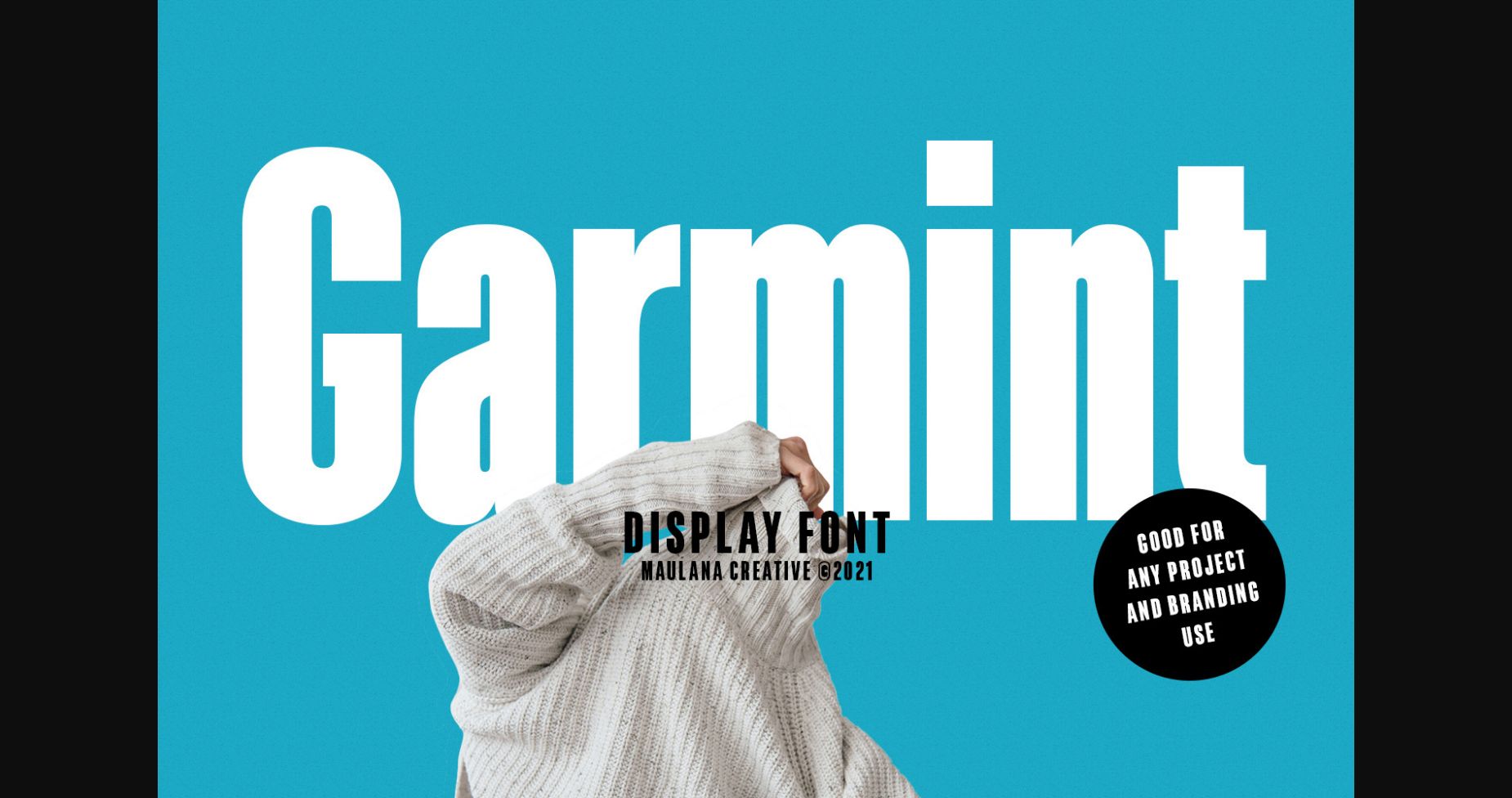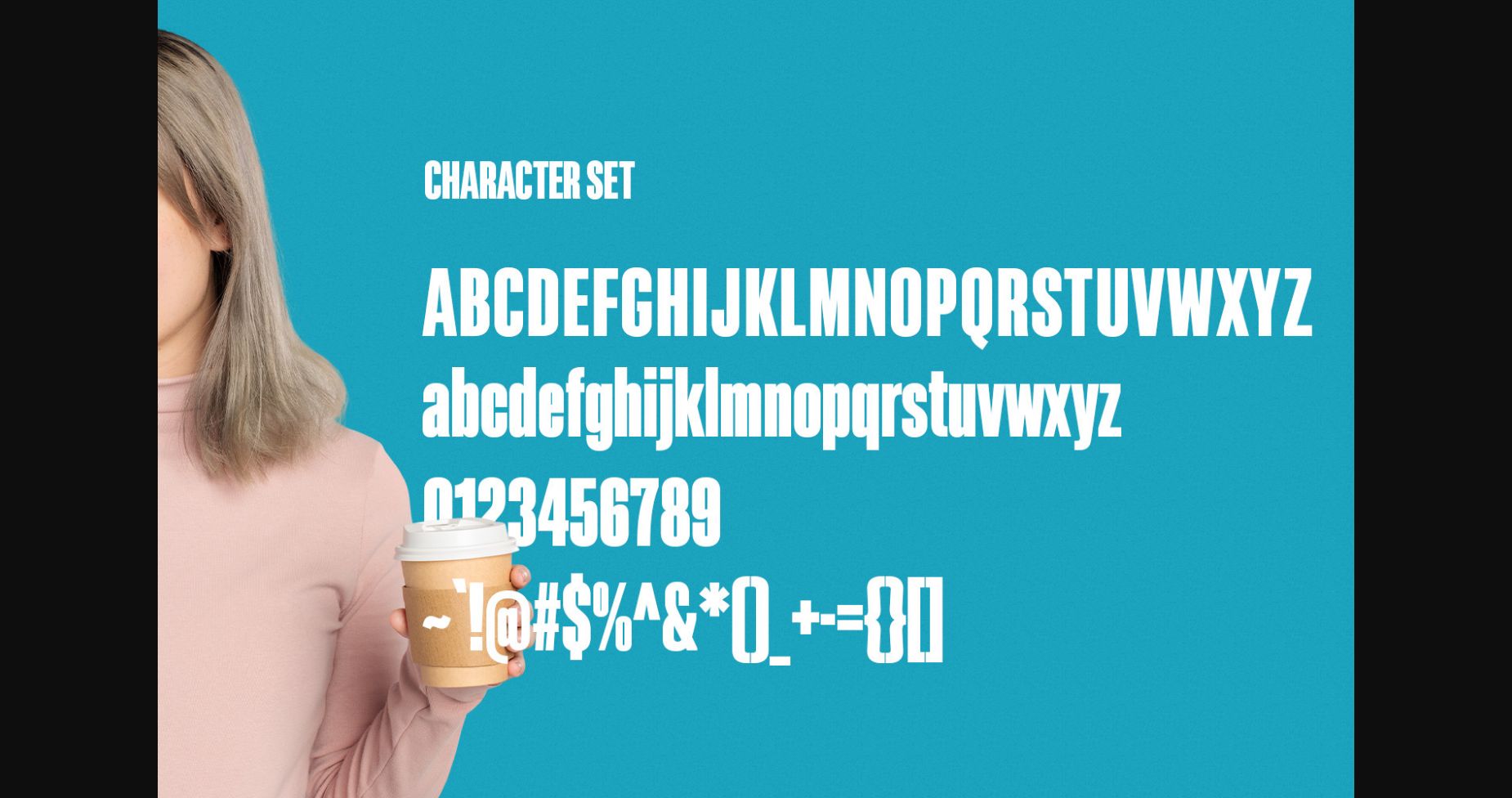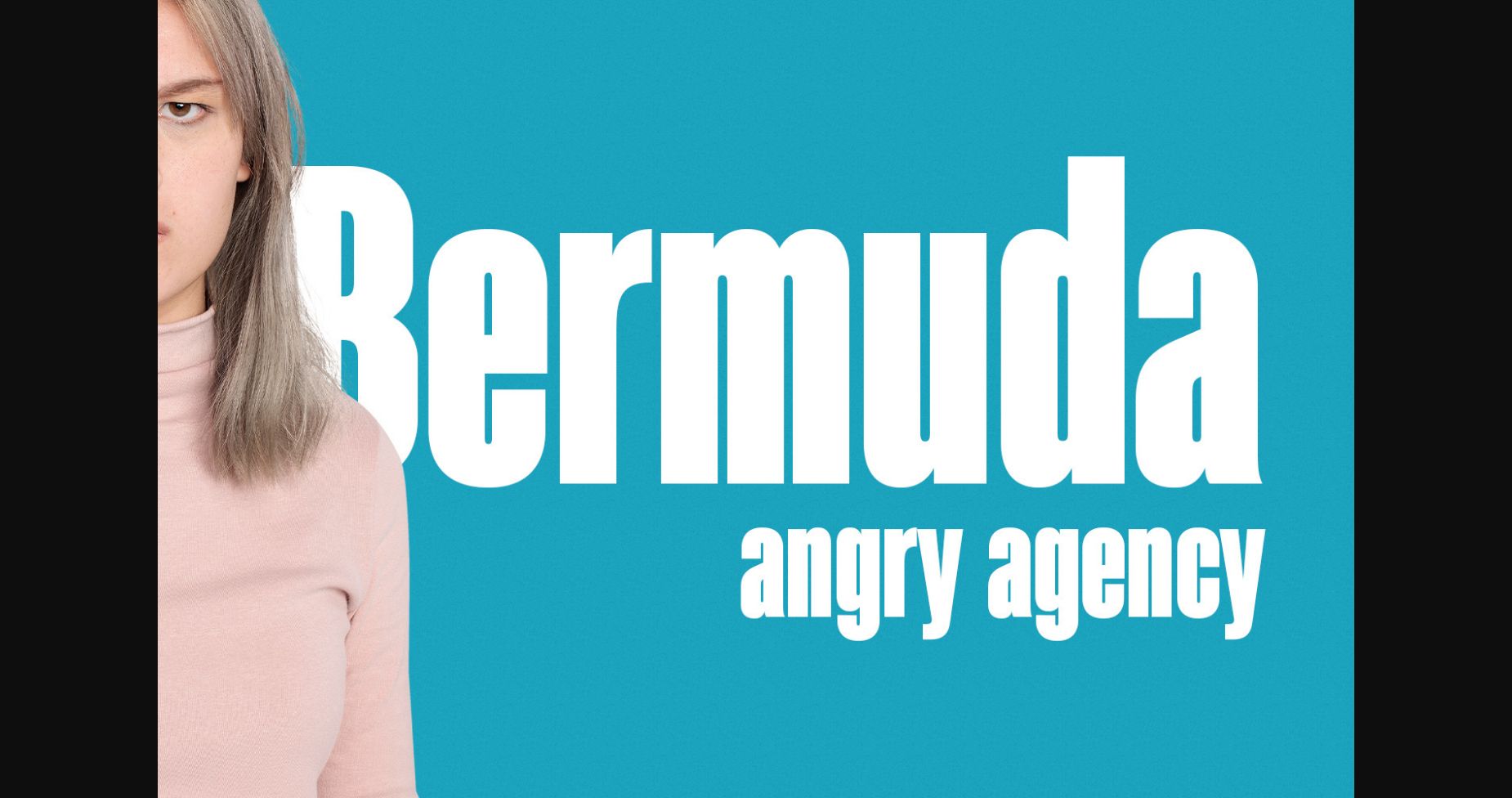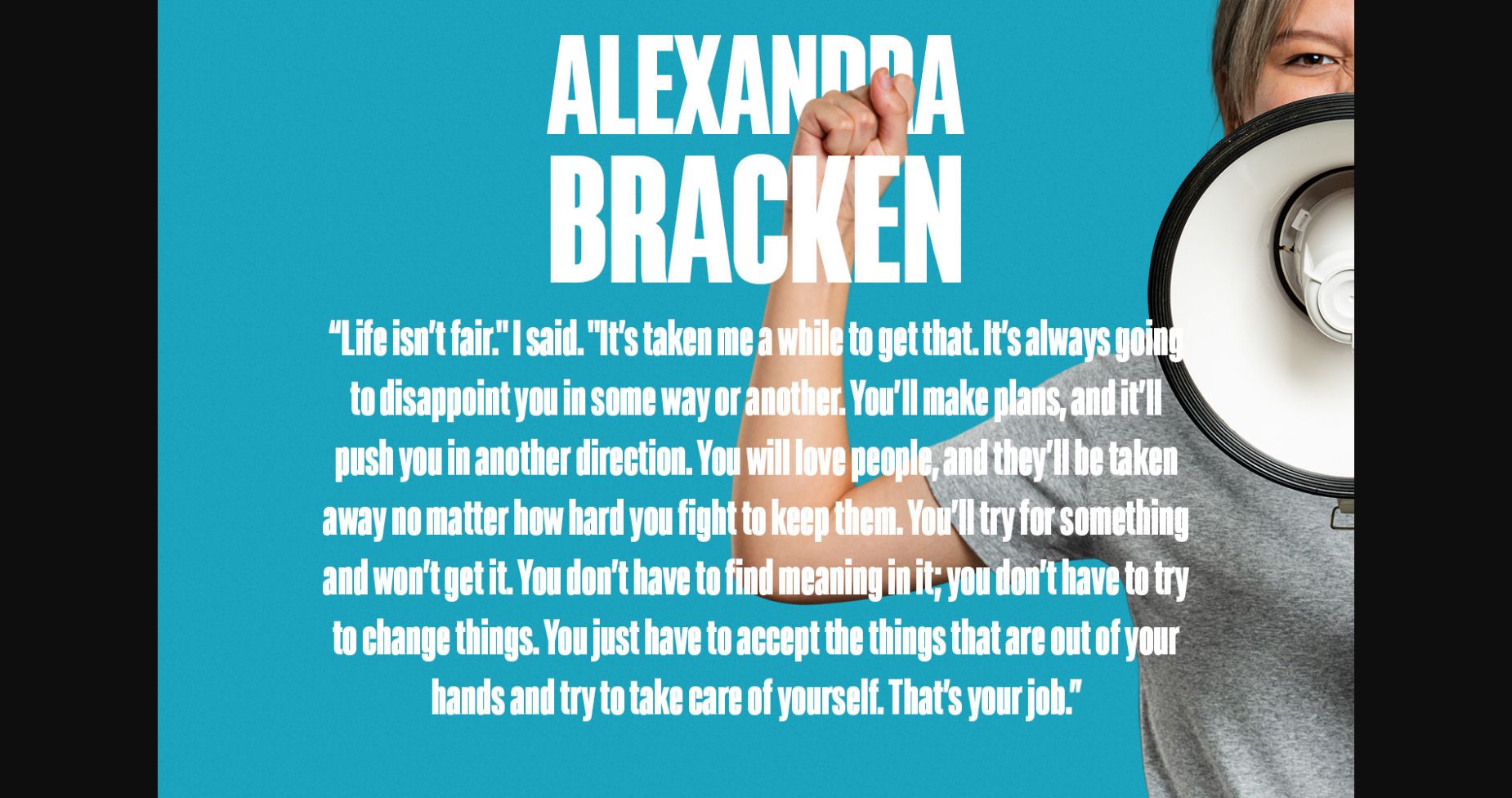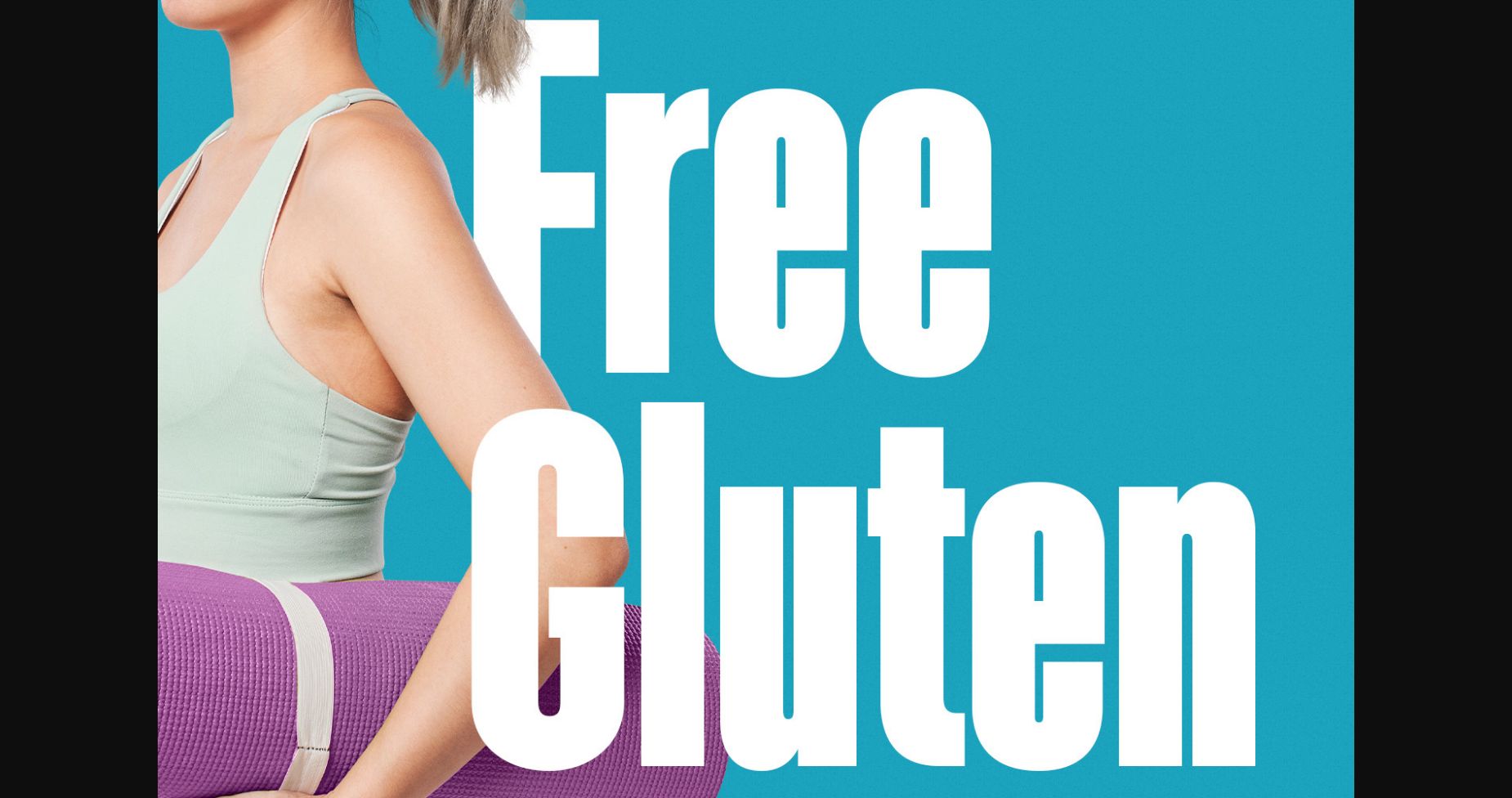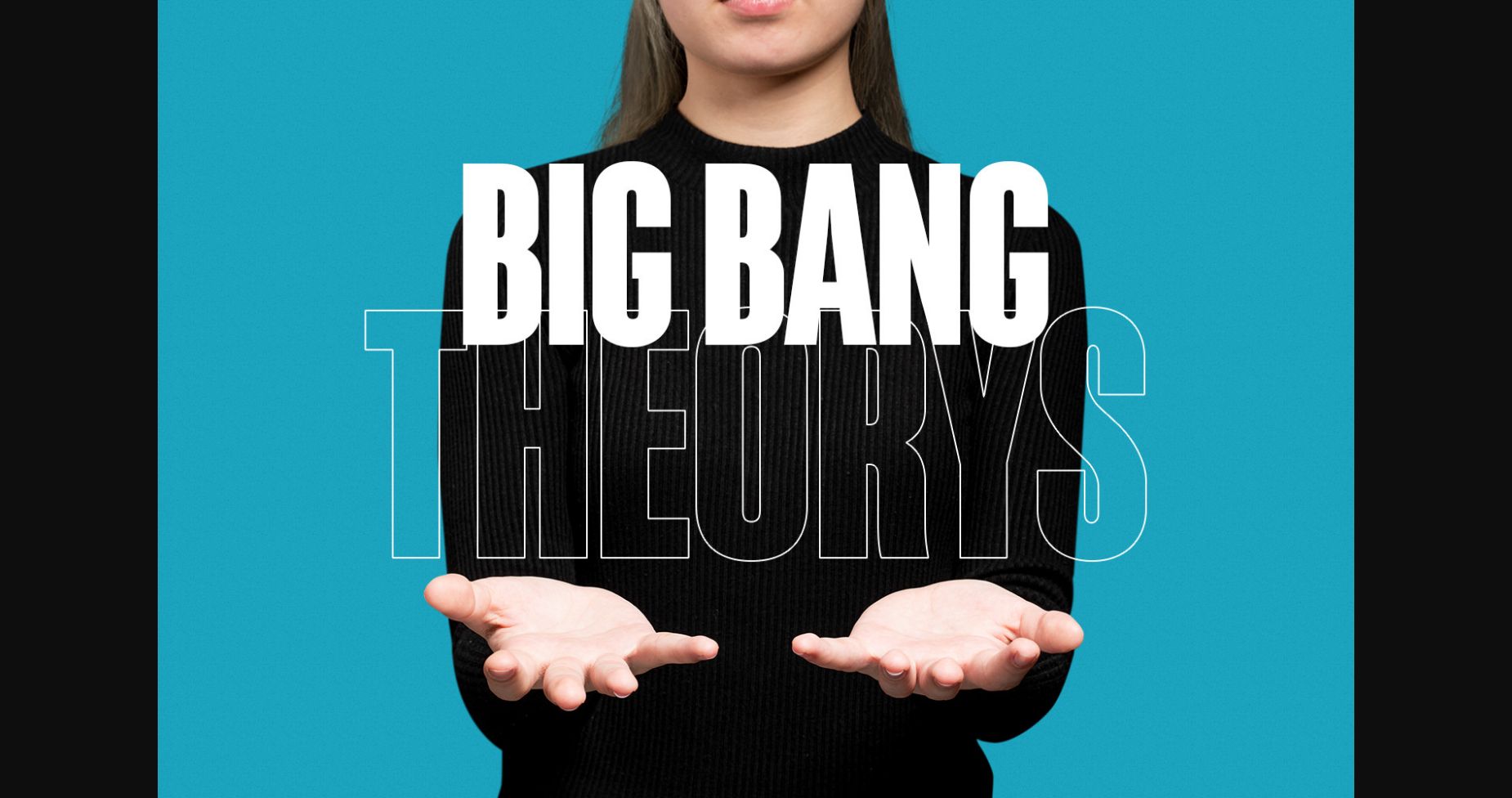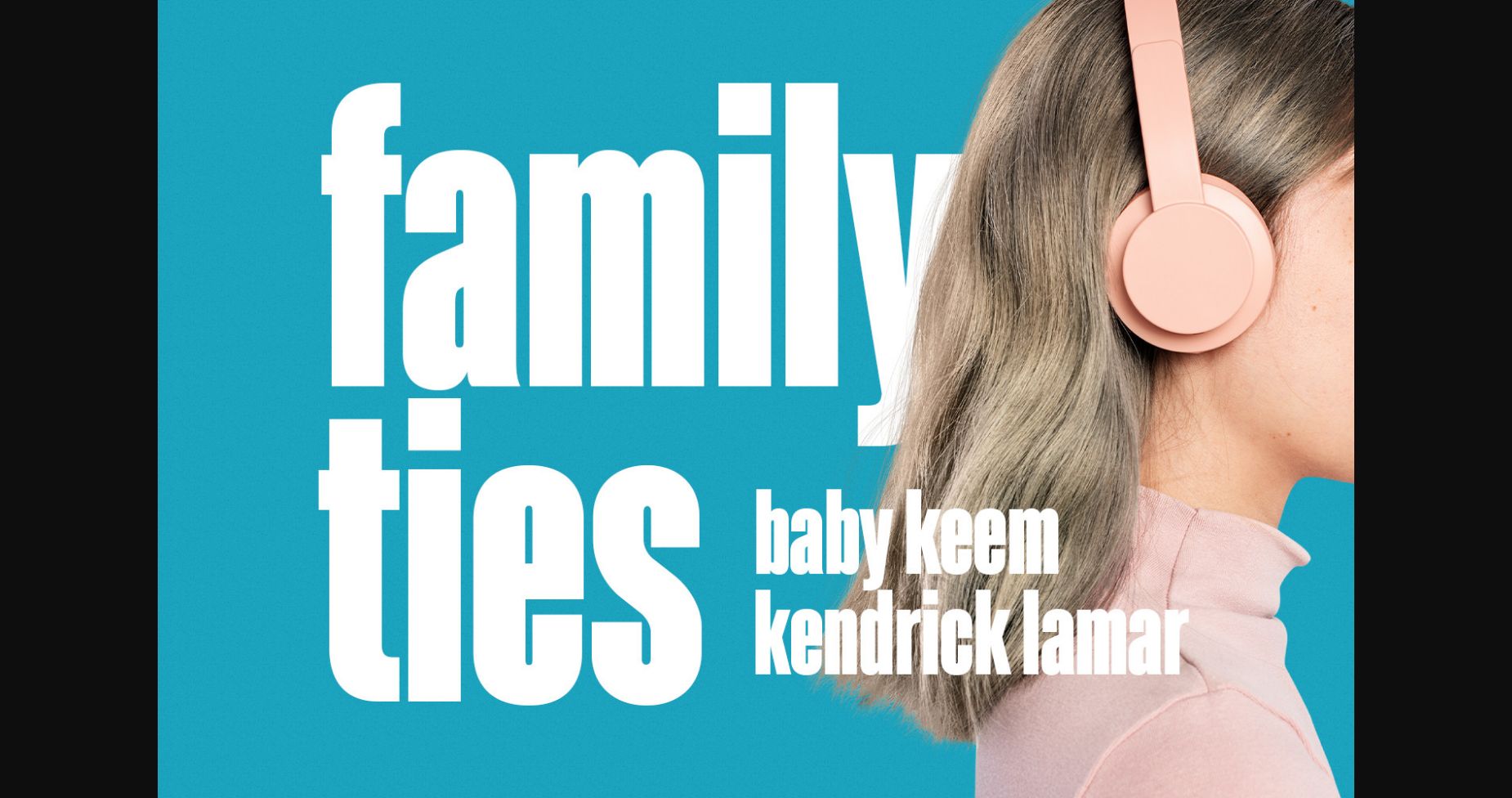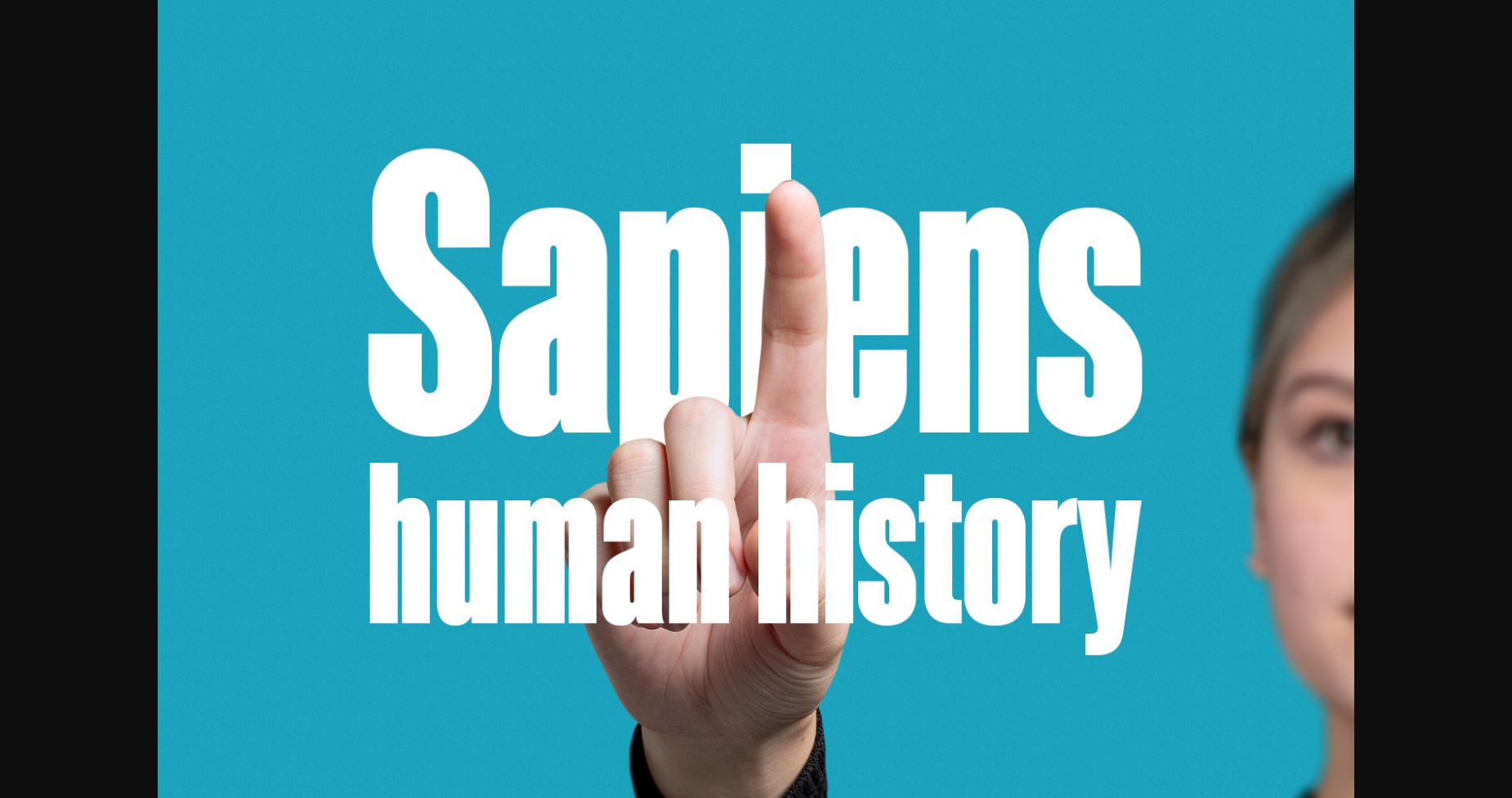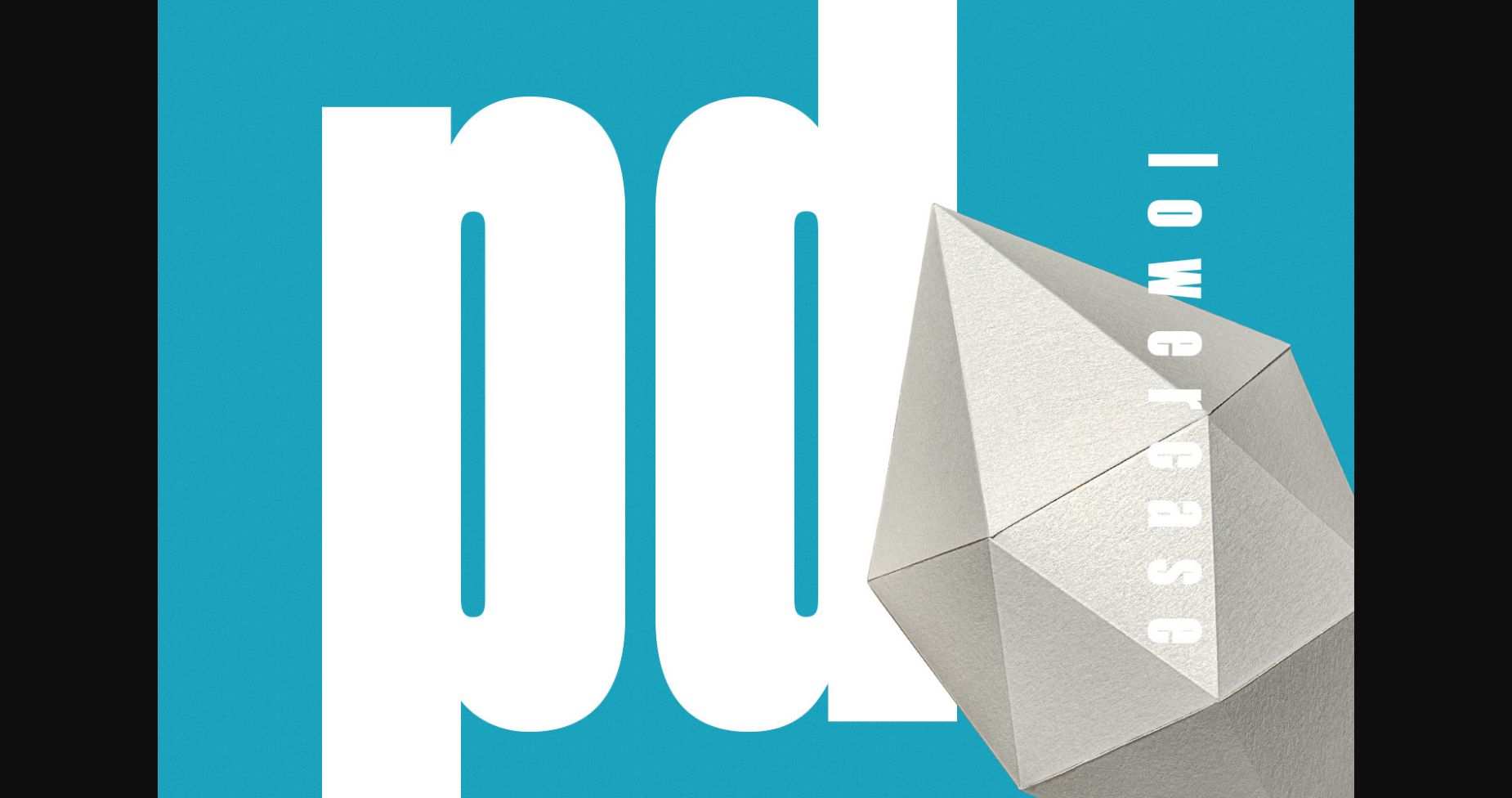
HomeSans Serif FontsGarmint Font Sans Serif Fonts Garmint Font FacebookXPinterestWhatsApp 1 of 11 ... Garmint Font Poster 2... Garmint Font Poster 3... Garmint Font Poster 4... Garmint Font Poster 5... Garmint Font Poster 6... Garmint Font Poster 7... Garmint Font Poster 8... Garmint Font Poster 9... Garmint Font Poster 10... Garmint Font Poster 11... About Garmint Font Garmint is a modern sans serif font with bold condensed strokes and fun characters. This font is good for logo designs, Social media, Movie Titles, Books Titles, short text even long text. Make stunning work with Garmint! DOWNLOAD NOW People also explored Monstone Font Pastel Story Font Wild Flourish Font Melline Font Butterfly Font Retrofest Font Balmyne Hetegra Font Aislinn Font Fiyya Qiyya Font 458 0 TagsGarmintGarmint Font Previous articleCollonse FontNext articleSimplicity Font LEAVE A REPLY Cancel reply Comment: Please enter your comment! Name:* Please enter your name here Email:* You have entered an incorrect email address! Please enter your email address here Website: Save my name, email, and website in this browser for the next time I comment. Personal Use Free Propaniac Personal Use Free Read more about this font Eits Personal Use Free Read more about this font Good Times Personal Use Free Read more about this font Hiters Personal Use Free Read more about this font BLOG 5 Fonts That Will Dominate Design Trends in 2026 5 Fonts for 2026 That Will Dominate Design Trends Typography plays a critical role in visual communication, and as we look ahead to 2026, it’s... To increase your work productivity, choose the most readable fonts. Modern Sans-Serif Fonts That Brands Love in 2025 Transform Your Website: Elevate Your Typography with 7 Best Web Font Generators